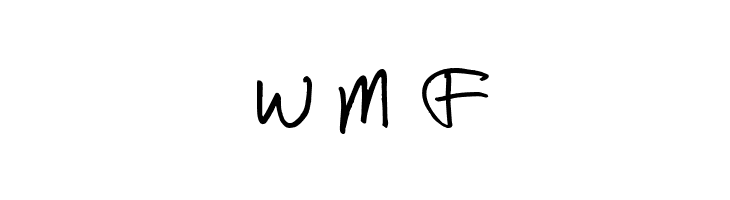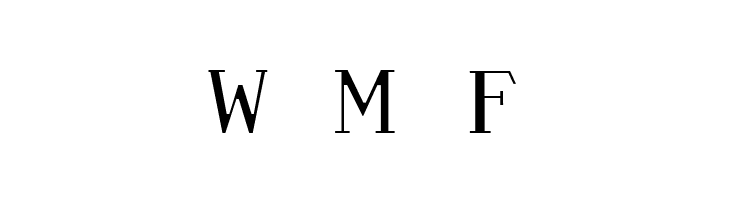
A distressed, grungy font with jagged edges and irregular strokes.
A dynamic, calligraphic font with sharp, angular strokes and expressive flourishes.
A playful, decorative font with circular embellishments and consistent stroke thickness.
A bold, decorative font with a modern and vintage blend, featuring angular strokes and elegant curves.
A classic serif font with elegant strokes and a modern touch.
A playful, handwritten font with bold, rounded strokes and a lively appearance.